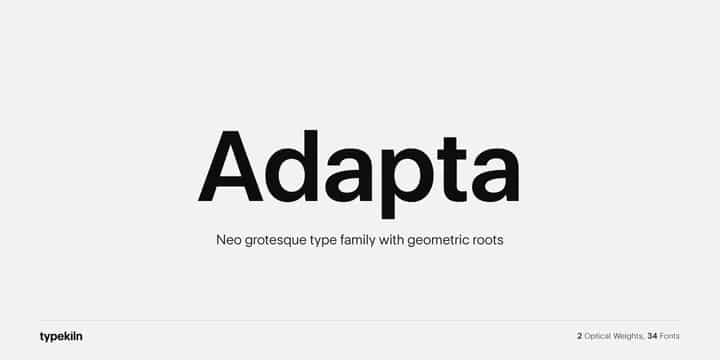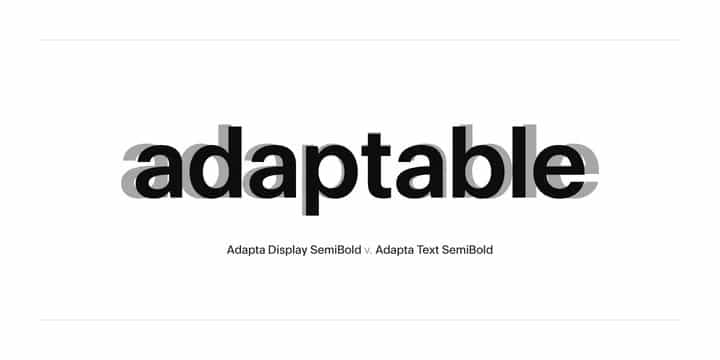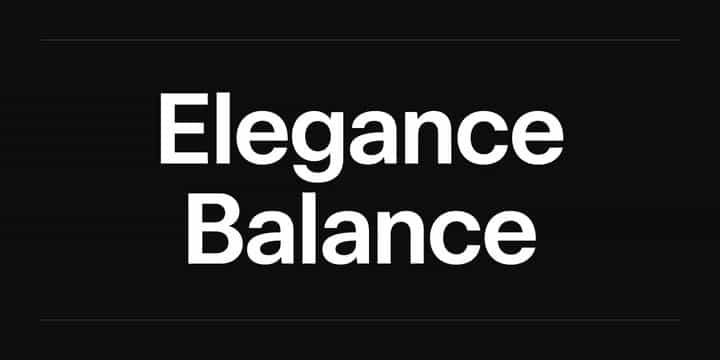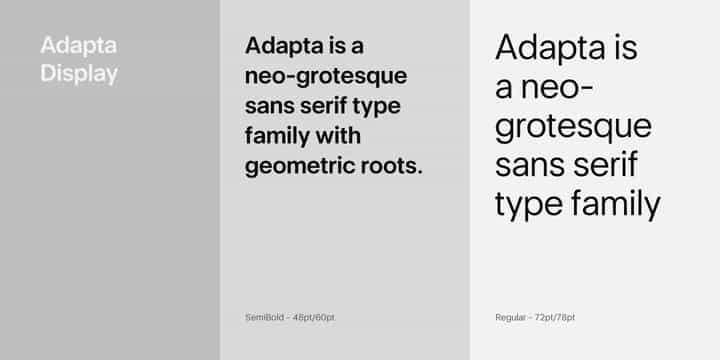
Adapta is a neo-grotesque sans-serif type family with the geometric roots. Although it looks normal, the geometric shapes that are present in Adapta make it look welcoming and unique at the same time. Totally including 34 fonts in two optical sizes, Display and Text, Adapta has compact spacing for headlines and Text styles are provided with larger opening and higher x-height for better readability at small sizes.